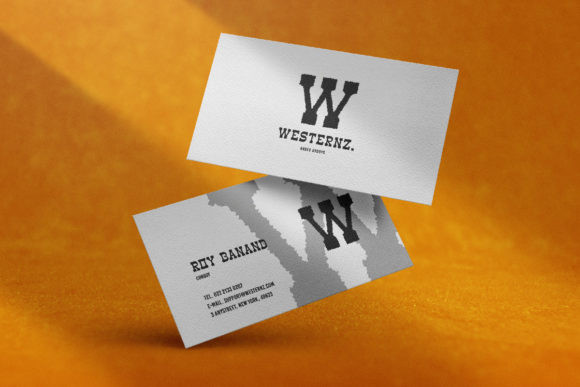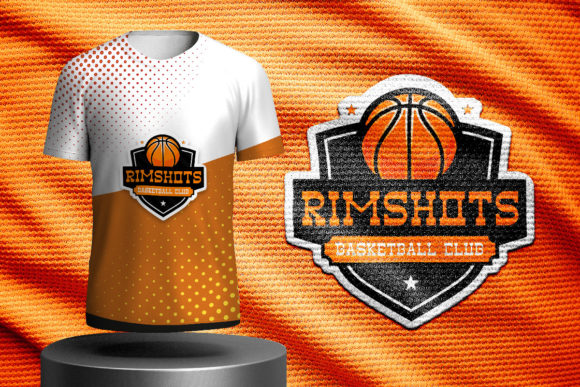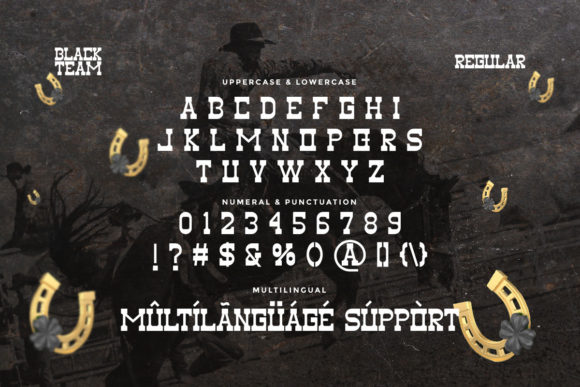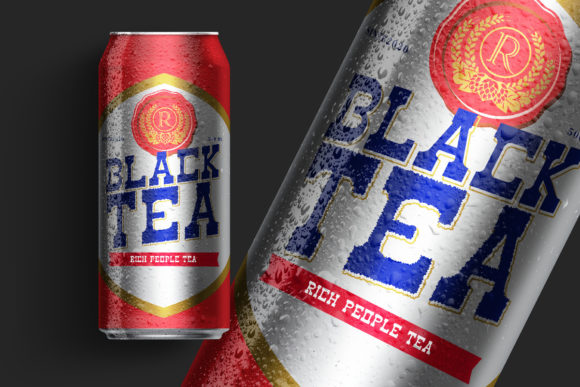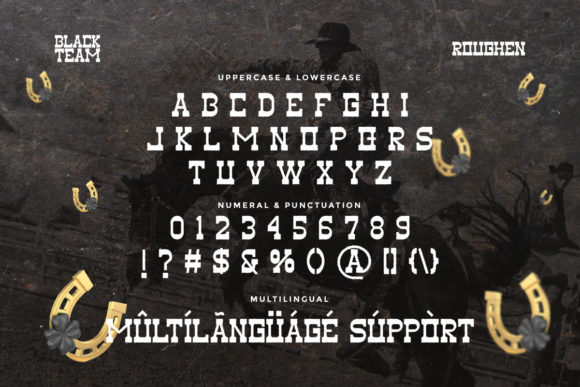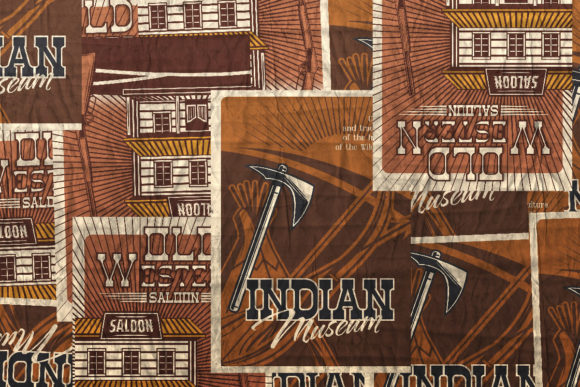
The Ultimate Font for Creatives: A Deep Dive into Black Team Font
I’ll never forget the time I was working on a project for a client who wanted a bold, western-inspired font to give their brand a rugged edge. I scoured the internet, tried countless fonts, but none seemed quite right. That was until I stumbled upon the Black Team font. It was love at first sight! 💕 In this article, I’ll share my experience with this amazing font, its features, and how to make the most of it in various design platforms.
An Honest Review of Black Team Font
So, what makes Black Team font so special? Let’s dive into the good stuff and a few quirks I’ve noticed.
• ✨ Unique Western Flair: Black Team font has a distinct western look that adds a cool, rugged touch to any design.
• ✅ Versatility: Whether you’re working on crafts, digital design, presentations, or greeting cards, this font fits right in.
• 💥 Impactful: The bold nature of the font makes it perfect for headlines, titles, and emphasis.
• 🤔 Limited Use in Body Text: Due to its bold nature, Black Team font might not be the best choice for lengthy body text. It’s perfect for titles and headings, though!
• ⚠️ Glyph Support: While the font has a good range of glyphs, it might not support every special character you need. A quick test will ensure it works for your project.
The Story Behind Black Team Font
While the exact origins of Black Team font might be shrouded in mystery, it’s clear that it was designed with the creative individual in mind. Perhaps inspired by vintage western posters, the designer aimed to create a font that’s both rugged and refined. Whether used for a branding project, a craft, or a simple greeting card, Black Team font brings a touch of the wild west to any design.
Black Team font is more than just a cool, western-looking display font; it’s a versatile tool for any creative project. With its bold impact, unique flair, and range of applications, it’s poised to become your go-to font for various design needs. Experiment with its features, explore similar fonts, and let your creativity ride into the wild west!